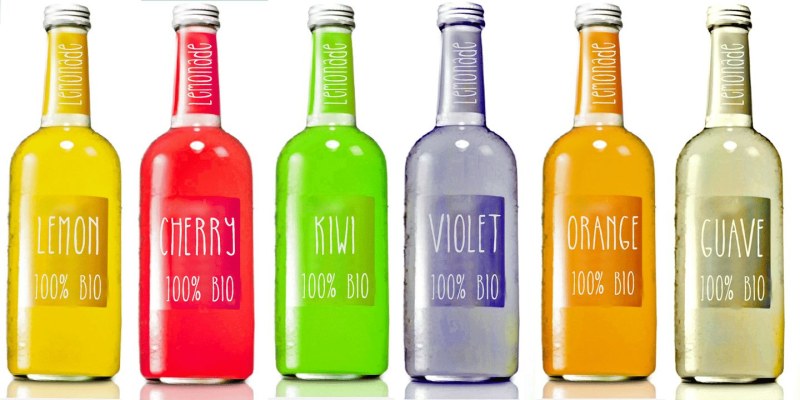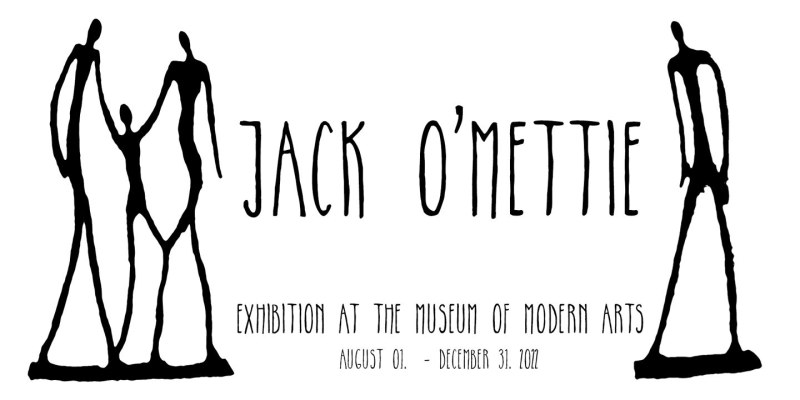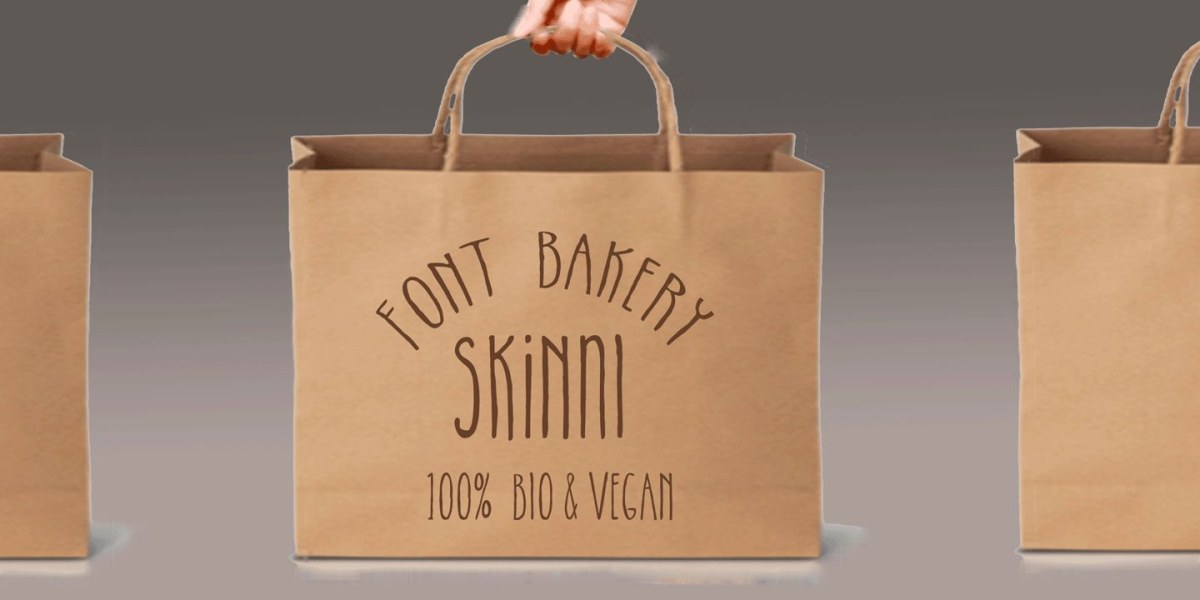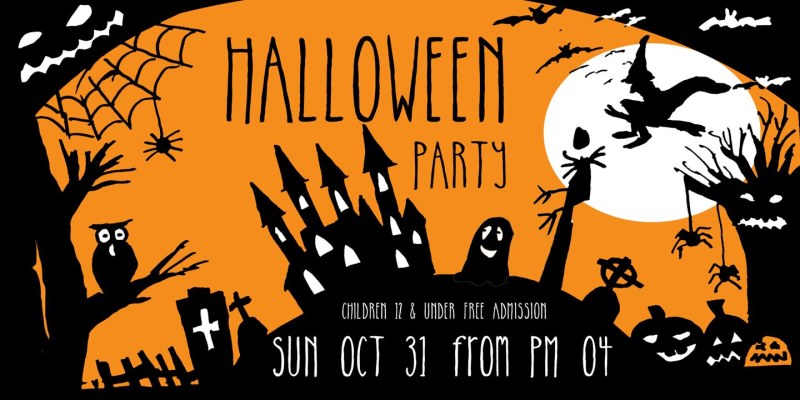
Skinni Font
A handcrafted font with extremely narrow letters, suitable for headings, logos, brands, menus, invitations, but can also be used with lowercase letters. Designed 2022 by…
A handcrafted font with extremely narrow letters, suitable for headings, logos, brands, menus, invitations, but can also be used with lowercase letters. Designed 2022 by Joachim Frank Germany.
Where Skinni Font works best
Skinni Font brings a personal, handwritten warmth to invitations, menus and place cards.
Craft brands — coffee, cosmetics, bakery — use scripts like Skinni Font for signature-style logos and labels.
Pair Skinni Font with a plain sans for quotes, stories and Pinterest pins that feel handmade.
What is Skinni Font good for?
Skinni Font is a Script And Handwritten typeface tagged Branding, Condensed, Download, Free. It works well for headlines, logos, posters, social media graphics and branding projects that need a distinctive script and handwritten look.